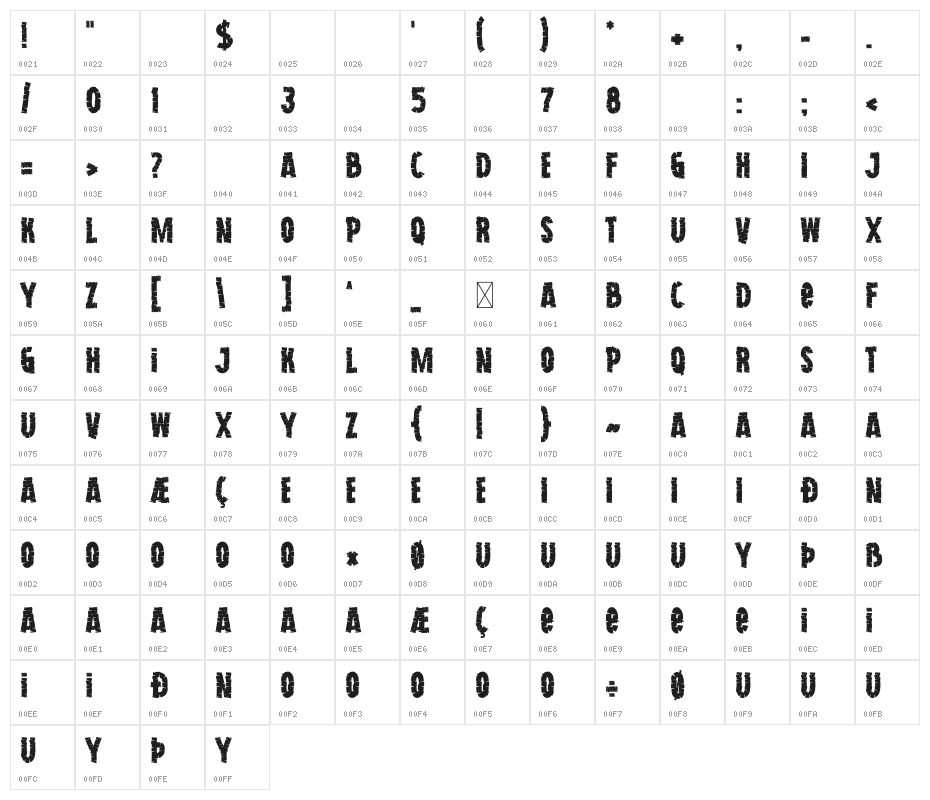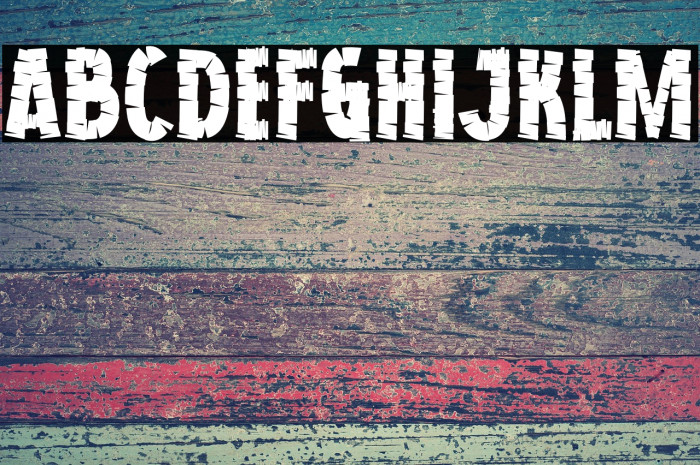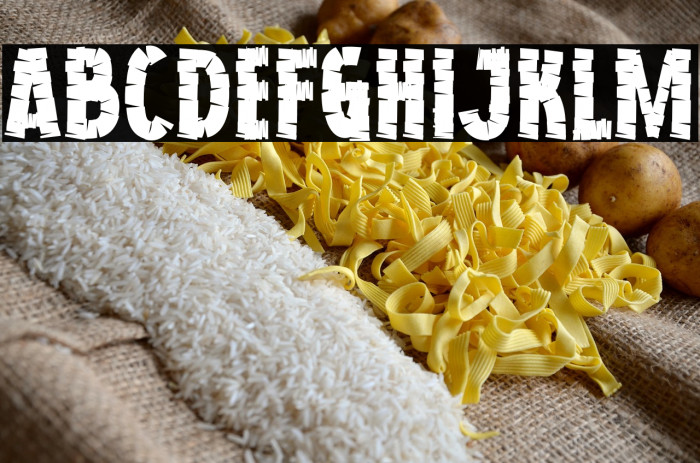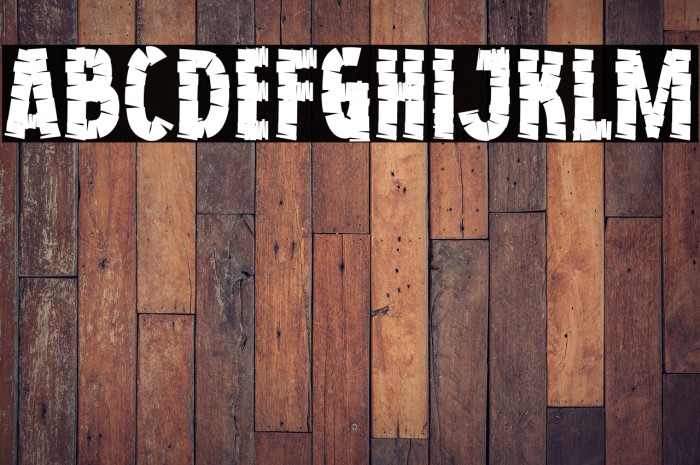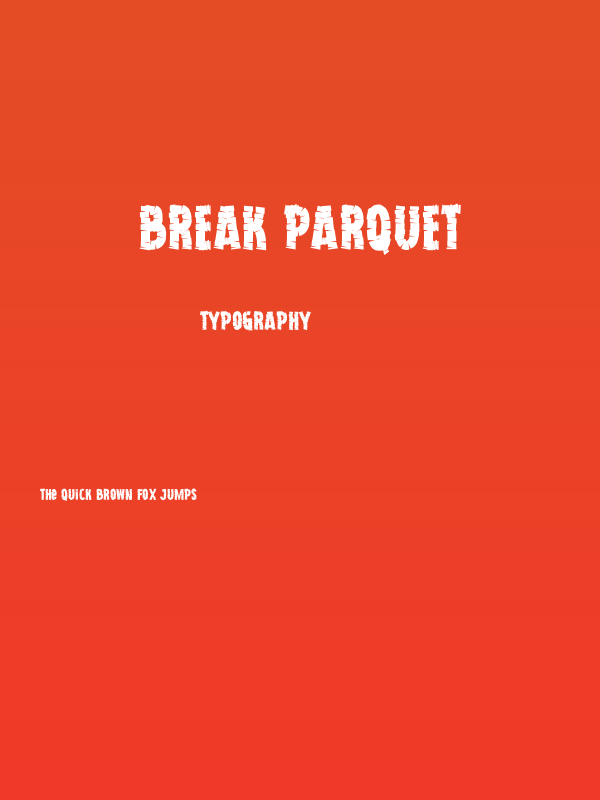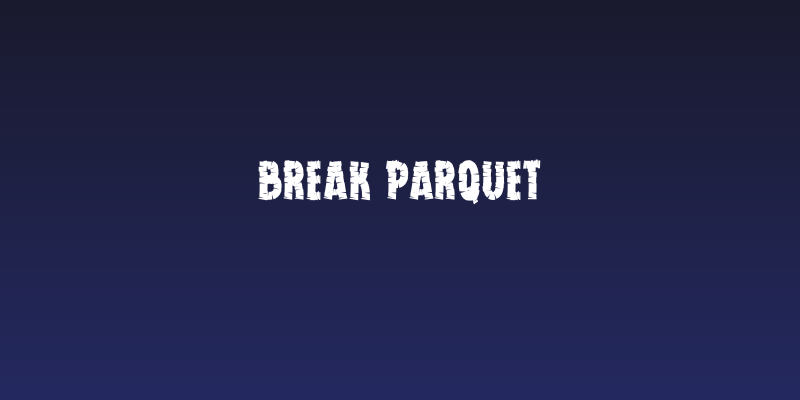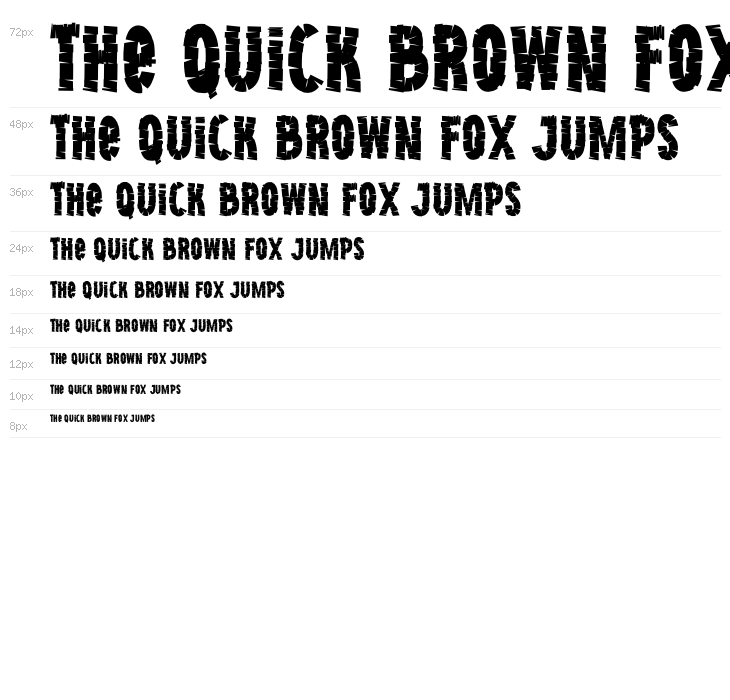
Break Parquet Font
Break Parquet Description
This font features a bold and rugged design, characterized by its distressed and fragmented appearance. Each letter is composed of sharp, angular shapes that give the impression of being shattered or broken, creating a dynamic and edgy look. The irregularity in the letterforms adds a sense of movement and energy, making it ideal for projects that require a strong visual impact. The font maintains a consistent thickness throughout, with high contrast between the solid black areas and the negative space. This style is particularly effective for creating attention-grabbing headlines or logos that convey a sense of rebellion or nonconformity.
| Proposed Projects | Ideal for posters, album covers, branding, and any design needing a bold, rebellious aesthetic. |